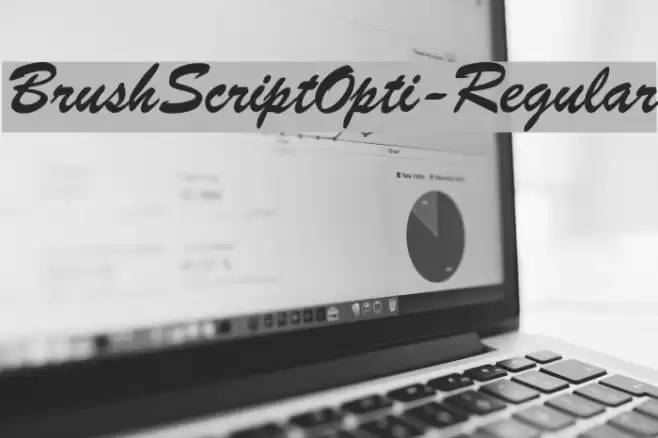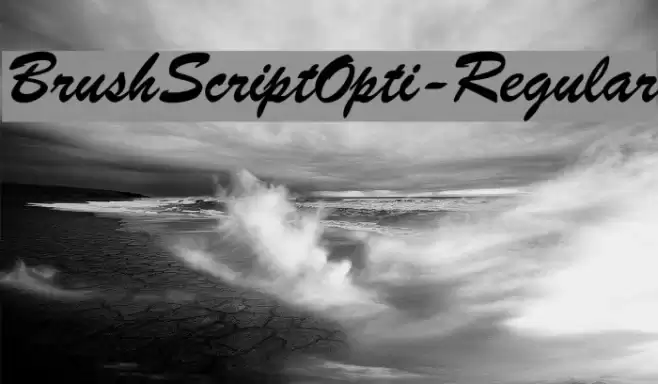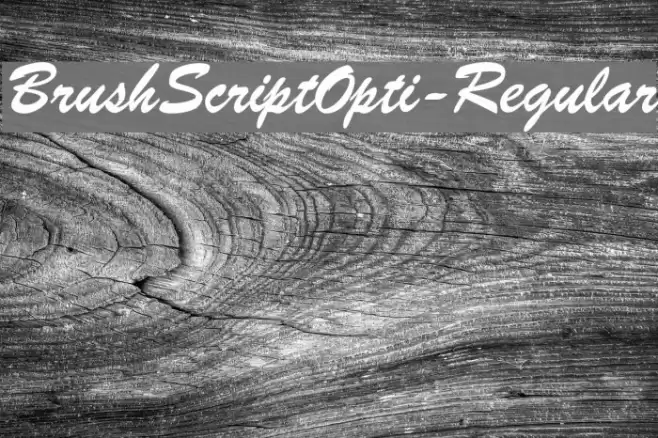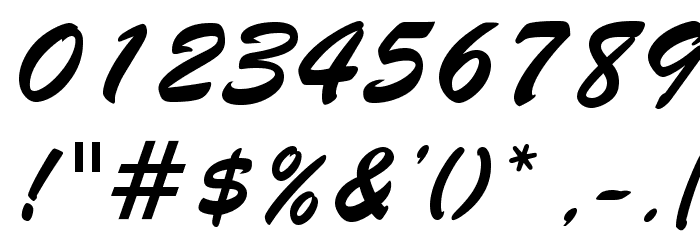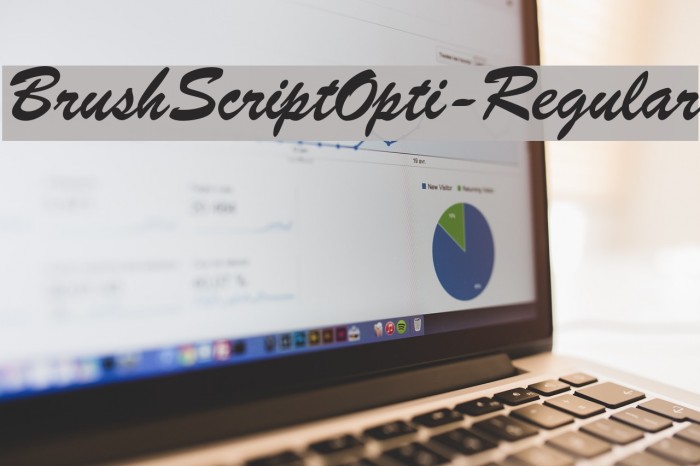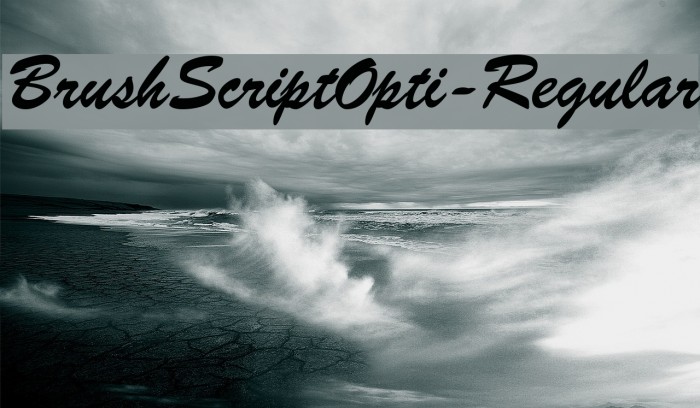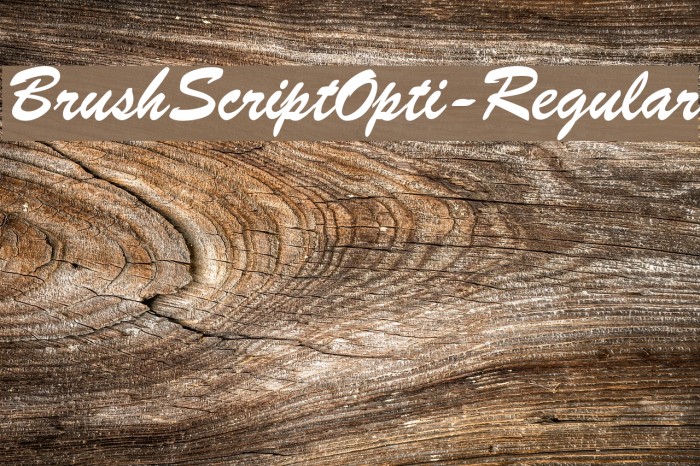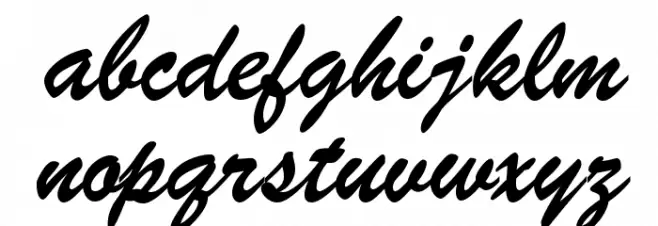
BrushScriptOpti-Regular Font
BrushScriptOpti-Regular Description
This font exudes a casual and artistic flair, characterized by its flowing, cursive style that mimics the natural strokes of a brush. The letters are connected in a smooth, continuous manner, giving it a handwritten appearance. The uppercase letters are bold and prominent, while the lowercase letters maintain a consistent flow, enhancing readability. The numbers and special characters are crafted with the same fluidity, ensuring a cohesive look across all elements. This font is ideal for projects that require a personal touch, such as invitations, greeting cards, or artistic branding.
A cursive, brush-style font with a flowing, handwritten appearance from Uncategorized fonts.
- Proposed Projects: Ideal for invitations, greeting cards, artistic branding, and personal projects.
- Use Case: Logos, Headlines, Artistic projects